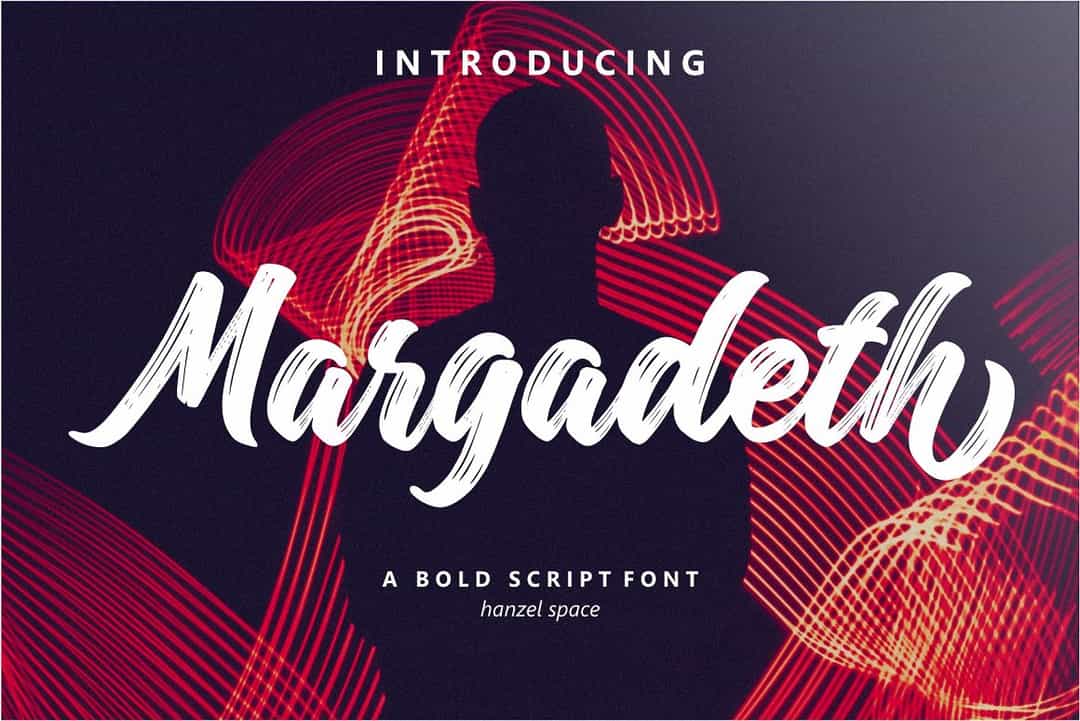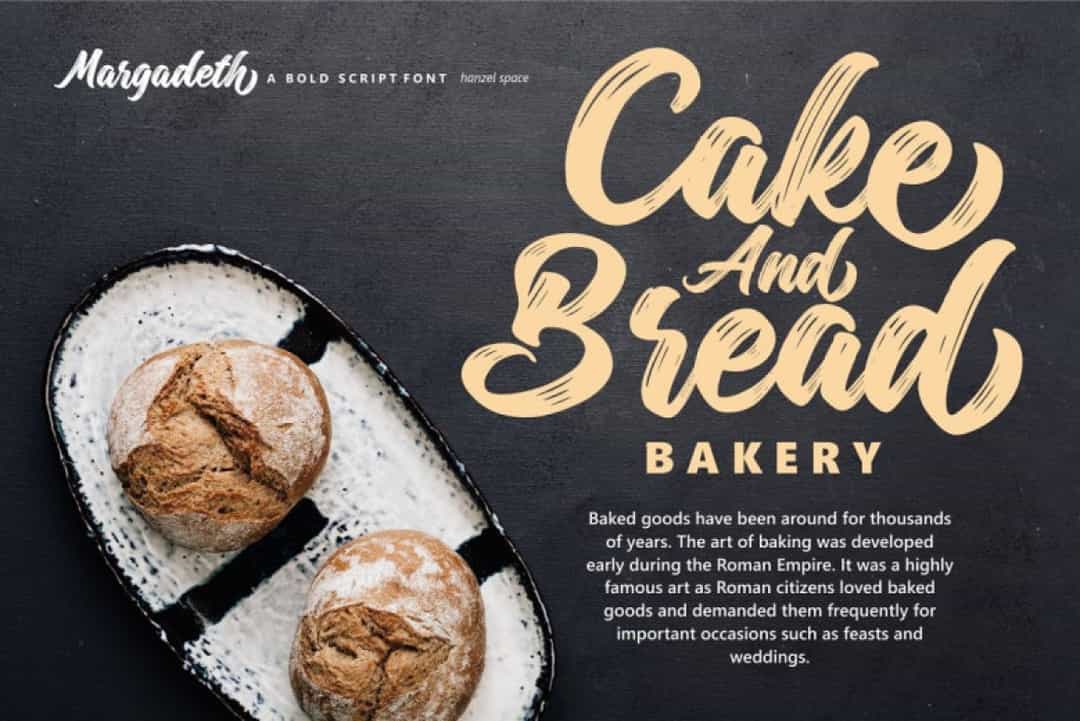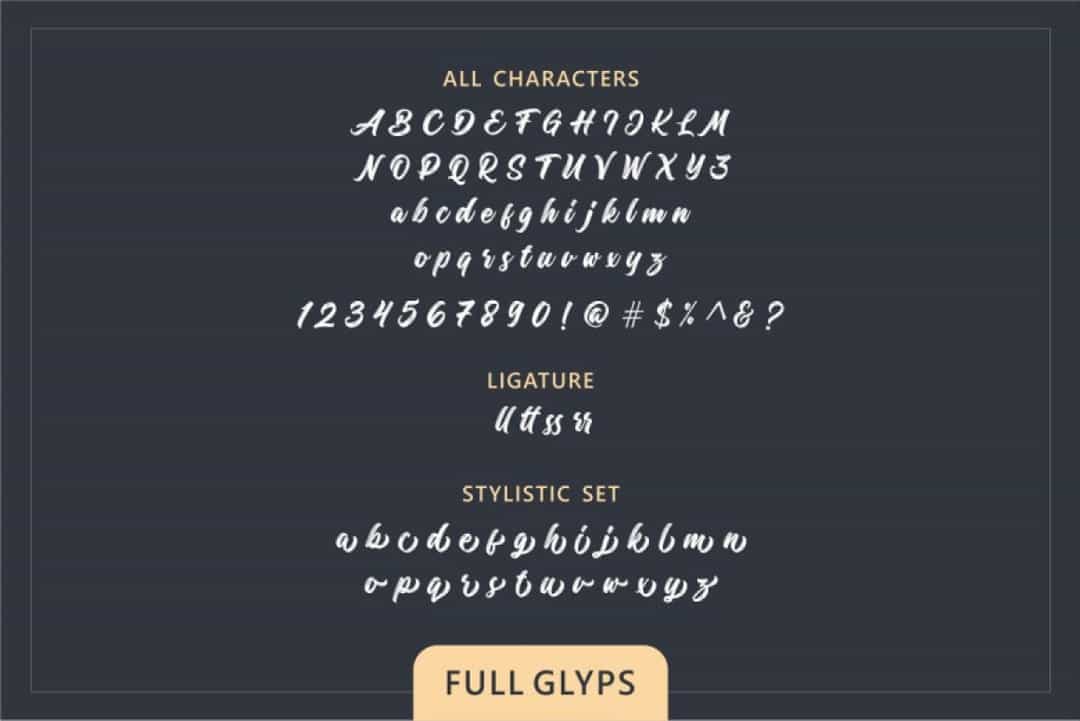
Margadeth is an eye-catching display font designed to give headlines and logotypes an eye-catching modern and bold aesthetic. Created by Hanzel Studio, this bold font includes Uppercase, Lowercase, Numeric accents punctuations plus 5 sets of alternate Ligatures Swash underlines which makes this font perfect for branding purposes or apparel design projects with quotes. PUA encoded for easy installation!